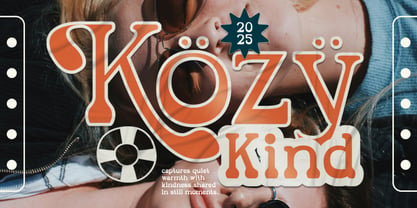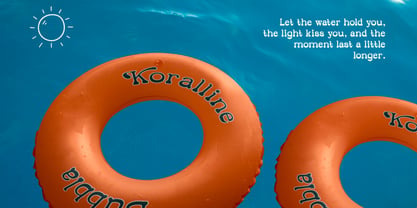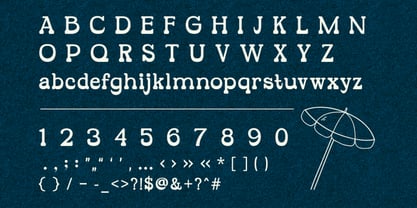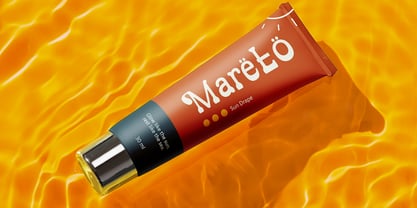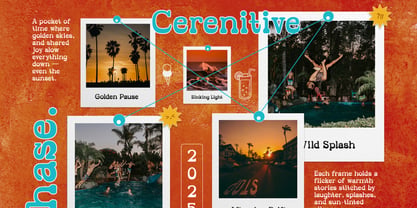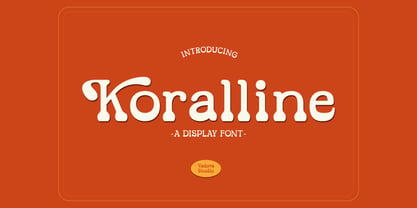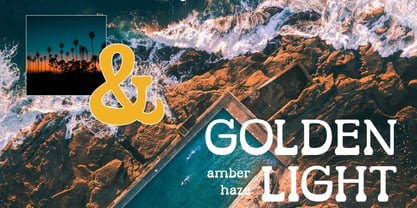
Koralline
Koralline is a vibrant and Playful Modern Display Font that radiates a laid-back, summer-inspired energy. Featuring soft, rounded serifs and distinctive "ball" terminals, this typeface strikes a perfect balance between mid-century retro charm and contemporary fun. The design includes full sets of uppercase and lowercase letters, numerals, and an extensive range of punctuation. Koralline is exceptionally relevant for travel, lifestyle, and leisure industries. Its breezy and approachable style makes it a natural fit for beach club branding, summer festival posters, travel blogs, and organic food packaging. It is the perfect "vacation" font, ideal for social media content that needs to feel relaxed yet professionally designed, or for children’s products that require a safe, rounded, and inviting look.